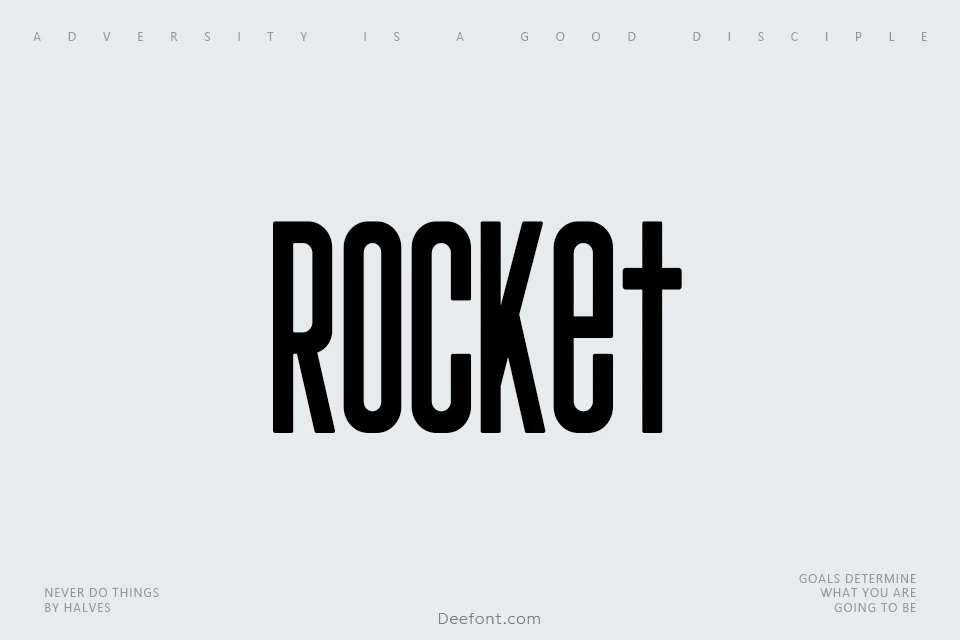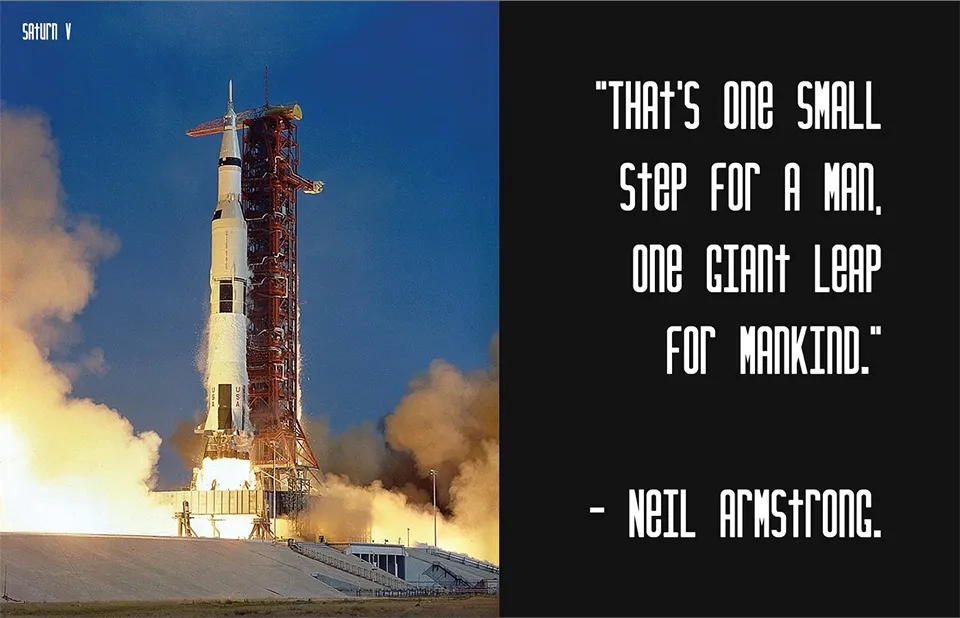
Rocket Font
Rocket Font is a bold display typeface designed to launch your projects into another orbit. Featuring strong, impactful letterforms, this font captures the essence of innovation and forward motion. Ideal for headlines, posters, and branding, Rocket Font demands attention and conveys a sense of power and modernity. Its clean lines and geometric structure ensure readability while maintaining a unique and dynamic aesthetic. If you want to make a statement that truly takes off, Rocket Font is an excellent choice.